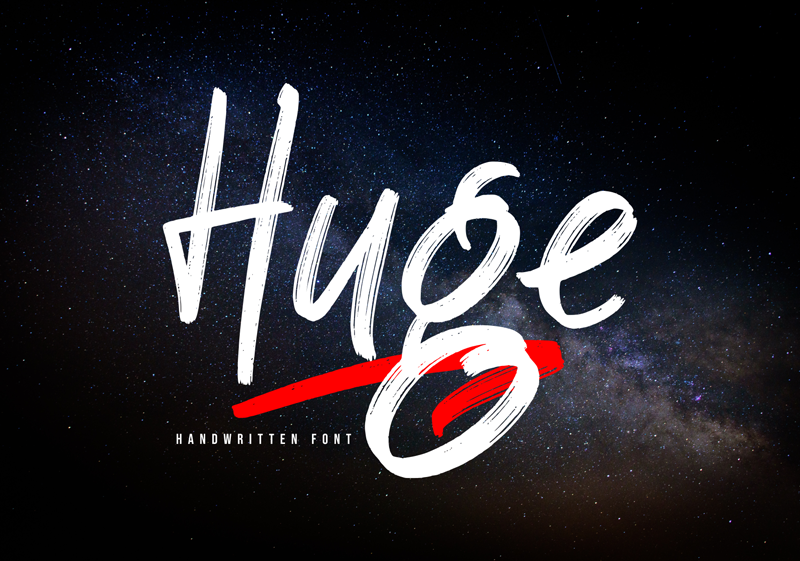
Font name: | Huge |
DETAILS Huge! A handwritten font with a personal charm. Huge is perfect for branding projects, homeware designs, flyers, posters, product packaging - or simply as a stylish text overlay to any background image. Whats Include? 1. Uppercase and lowercase characters 2. Supports international languages 3. Numerals & punctuations, stylistic alternates, and ligatures 4. Accessible in the Adobe Illustrator Glyphs panel, or under Stylistic Alternates in the Adobe Photoshop OpenType menu, Adobe InDesign, Corel Draw, even work on Microsoft Word. 5. TTF and OTF files 6. Bonus 59 vectors (swashes, catchphrases, and doodles) Fonts are provided in TTF & OTF formats. I recommend installing the TTF files, and the OTF only if necessary. There is no difference in function with either format. Fonts include multilingual support. Please message me if you're unsure of any language support. Full version and commercial license: https://fontbundles.net/omotu/276826-huge Visit my portofolio at: https://www.behance.net/omotu Thanks for looking, and I hope you enjoy it! Please don't hesitate to drop me a message if you have any issues or queries. Omotu Studio ibnu.blawong2@gmail.com |